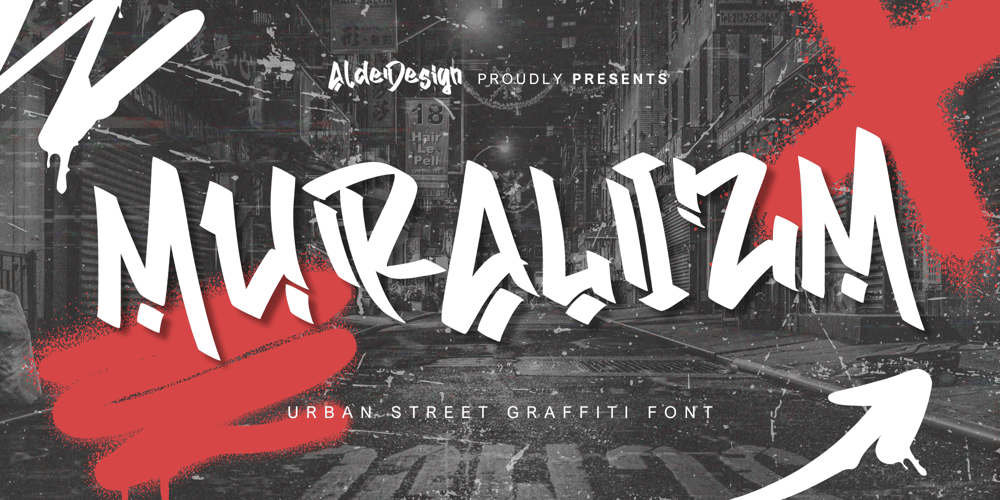
Muralizm
Muralizm font
Muralizm Font Family was designed by Alde Saputro and published by Aldedesign. Muralizm contains 1 styles and family package options. Muralizm – Graffiti TypefaceOur graffiti-inspired typefaces redefine digital expression by capturing the raw energy and vibrant spirit of urban streets. From the bold strokes reminiscent of spray paint to the edgy characters that speak volumes, our collection allows you to infuse your designs with the dynamic essence of the city. Whether you’re tagging virtual walls or unleashing your creativity on digital canvases, our fonts provide the perfect tools to make your words pop and your message resonate with authenticity.Included in the package:* Standard glyphs* Multilingual support* Compatible with both PC & Mac, with easy installationCompatible with Adobe Illustrator, Adobe Photoshop, Adobe InDesign, and even Microsoft Word. PUA Encoded Characters – Fully accessible without extra design software. The fonts also come with multilingual support.Note: Preview images/photos/vectors are excluded, used solely for illustrative purposes.